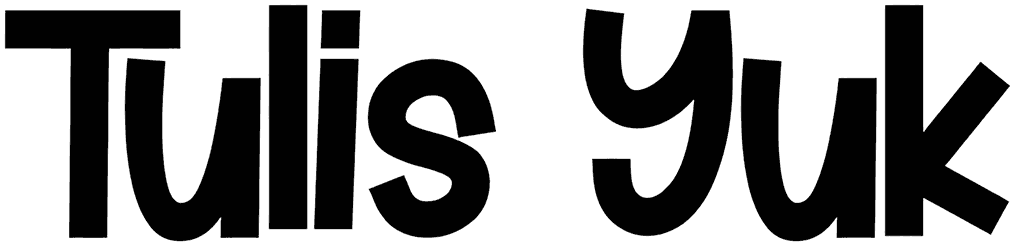
Tulis Yuk Font
Today, we want to offer you a playful handwritten font overflowing with additional happiness and fun. Tulis Yuk is bold and readable enough to capture all the attention, transferring your message from children to older people.
This cartoon font will fit perfectly for comic books, TV show titles, animation posters, toy products, and apparel prints. So choose it now and promote your text to a whole new level.